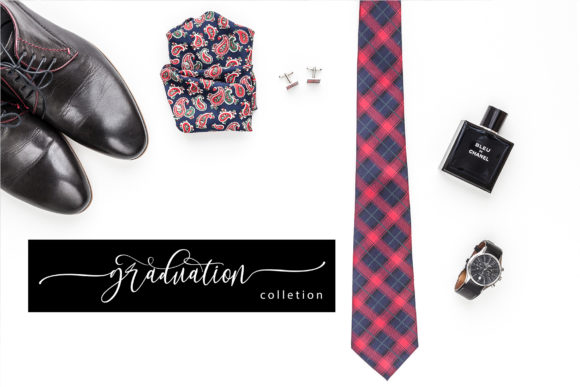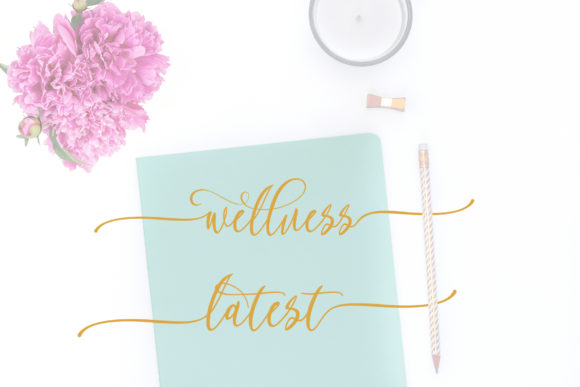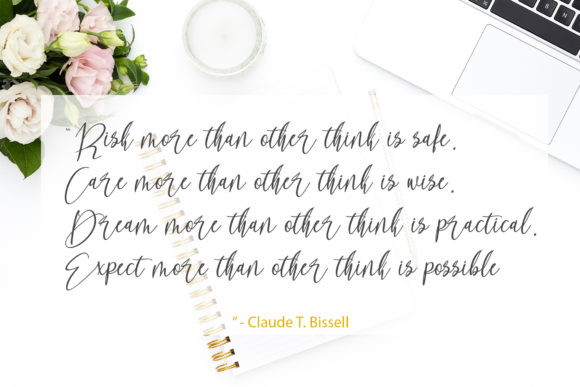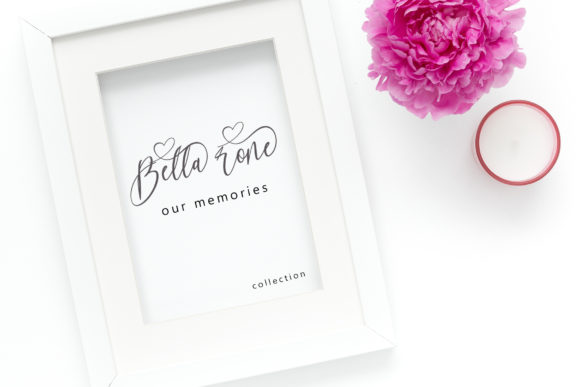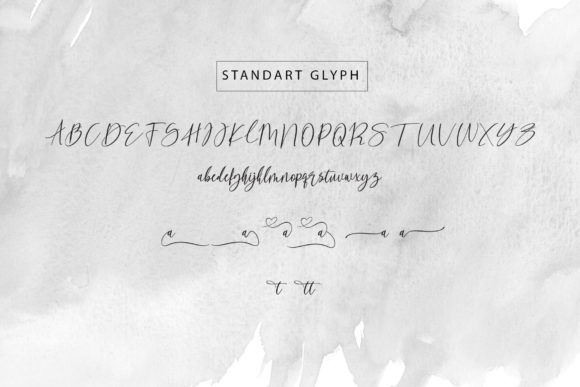
Introduction to Kallita Font
Kallita is a modern calligraphy font made with a natural handwriting style.
Get inspired by its charming character .
Key Features of Kallita Font